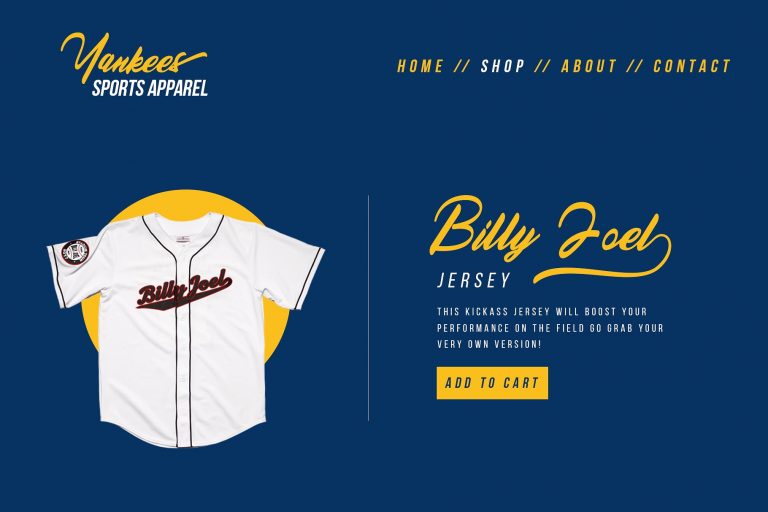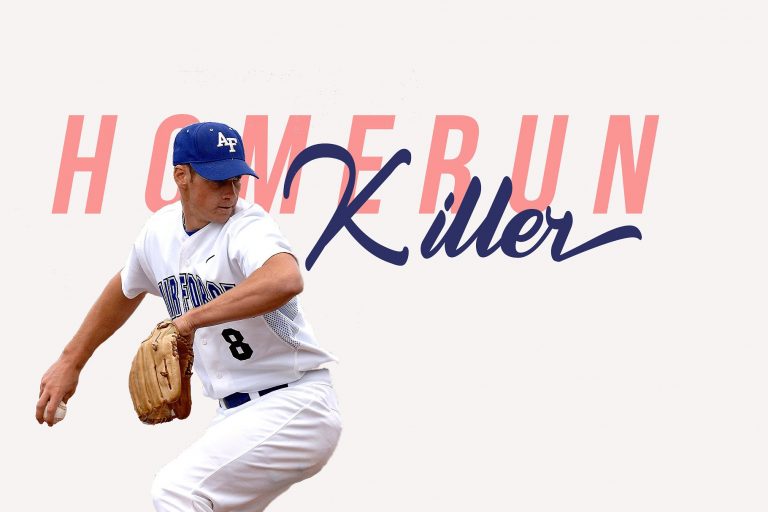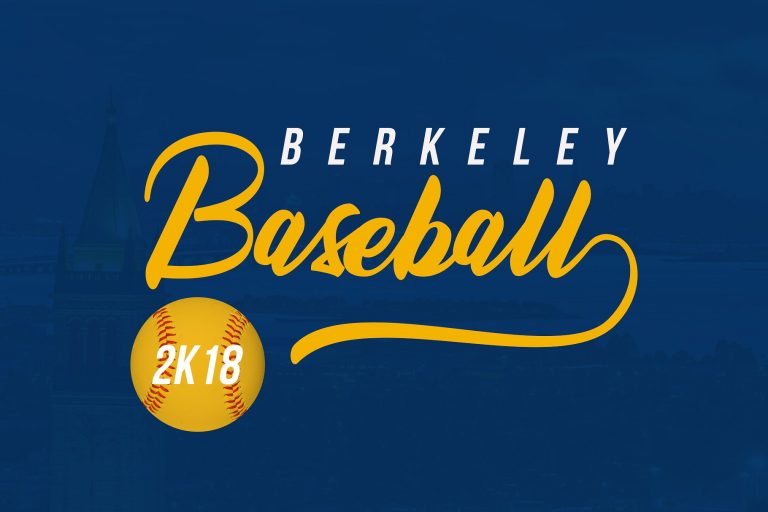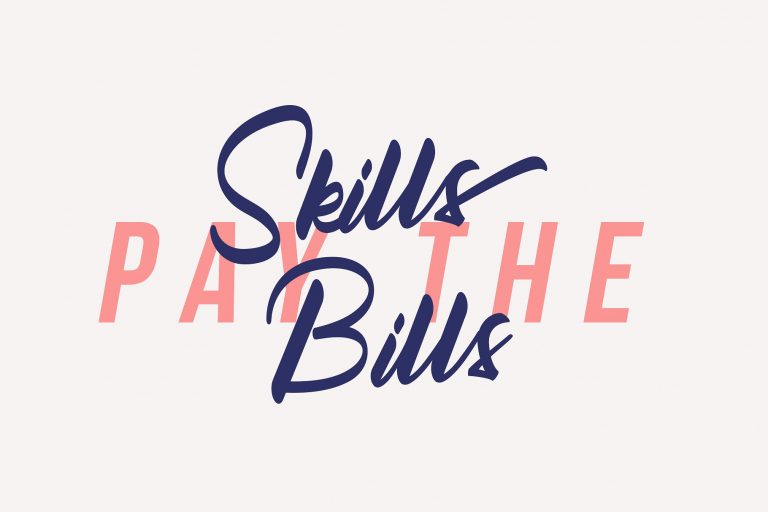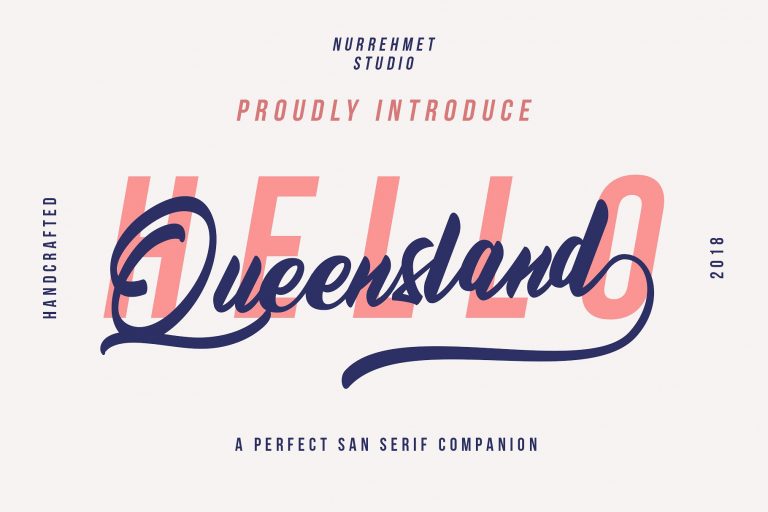
Queensland Script Font
This is a perfect script companion. Introducing Queensland Font. It is designed by Nurrehmet Studio. Queensland – bold and modern script that will fulfill your design needs for sporty theme, logotype, quotes, wordmark, etc. This has many opentype features like stylistic alternate, contextual alternate, swash, etc and support multi language.